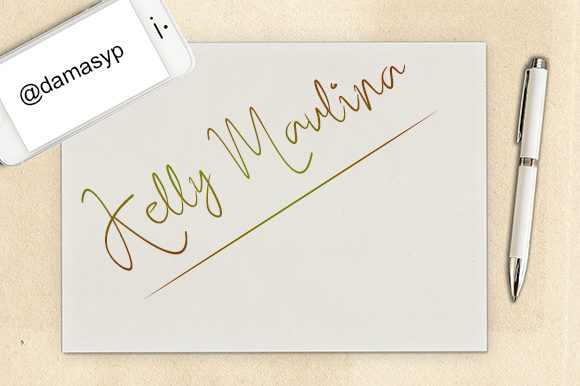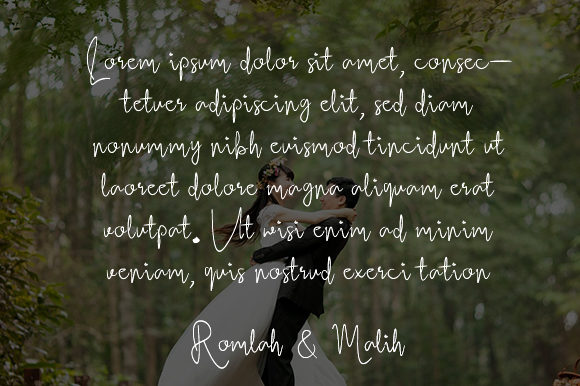
Indah Tulisan Font
About Indah Tulisan Font
Indah Tulisan is a simple and charming handwriting font with extraordinary nuances. It will turn any design project into a beautiful artwork.